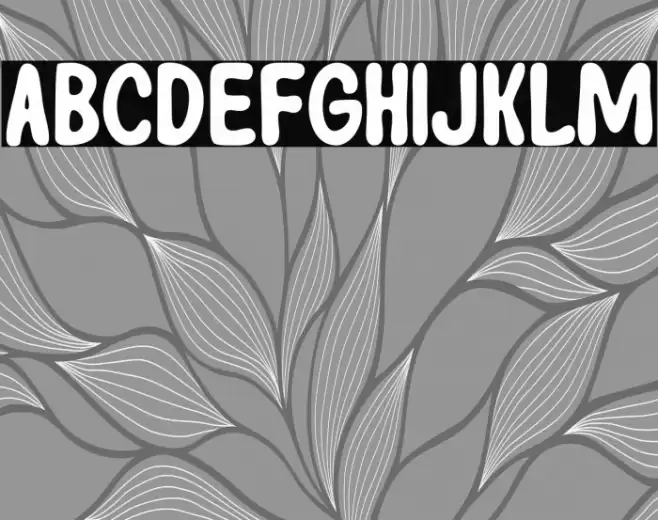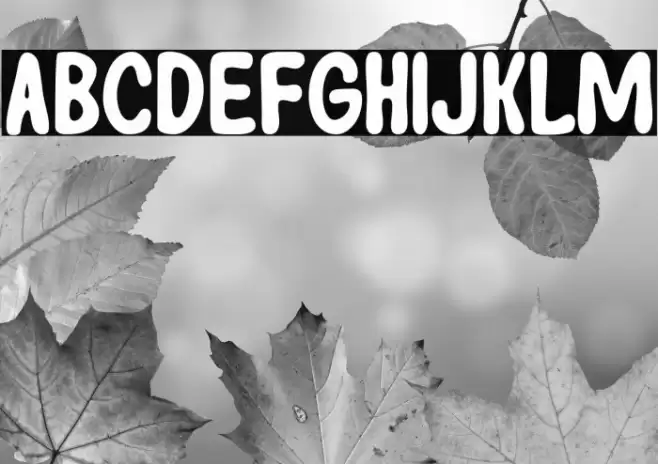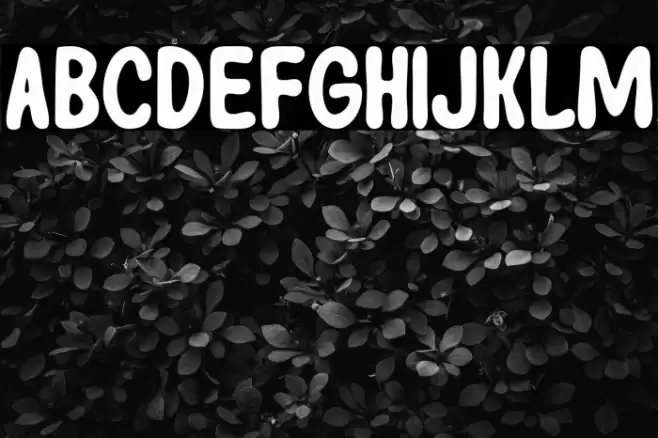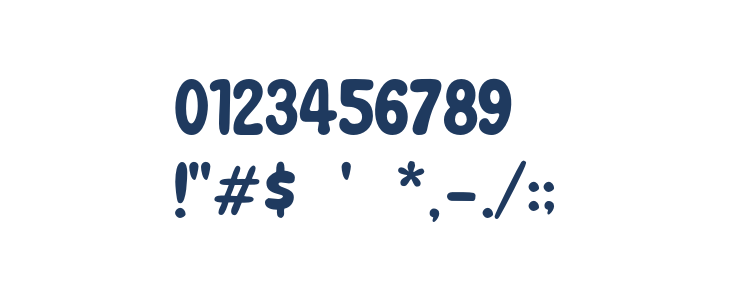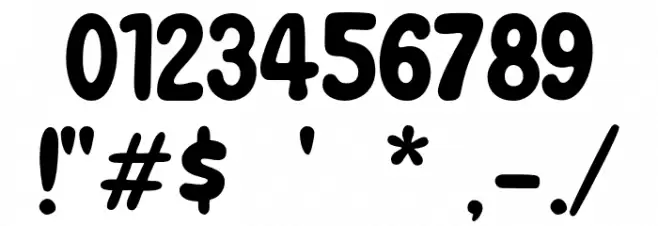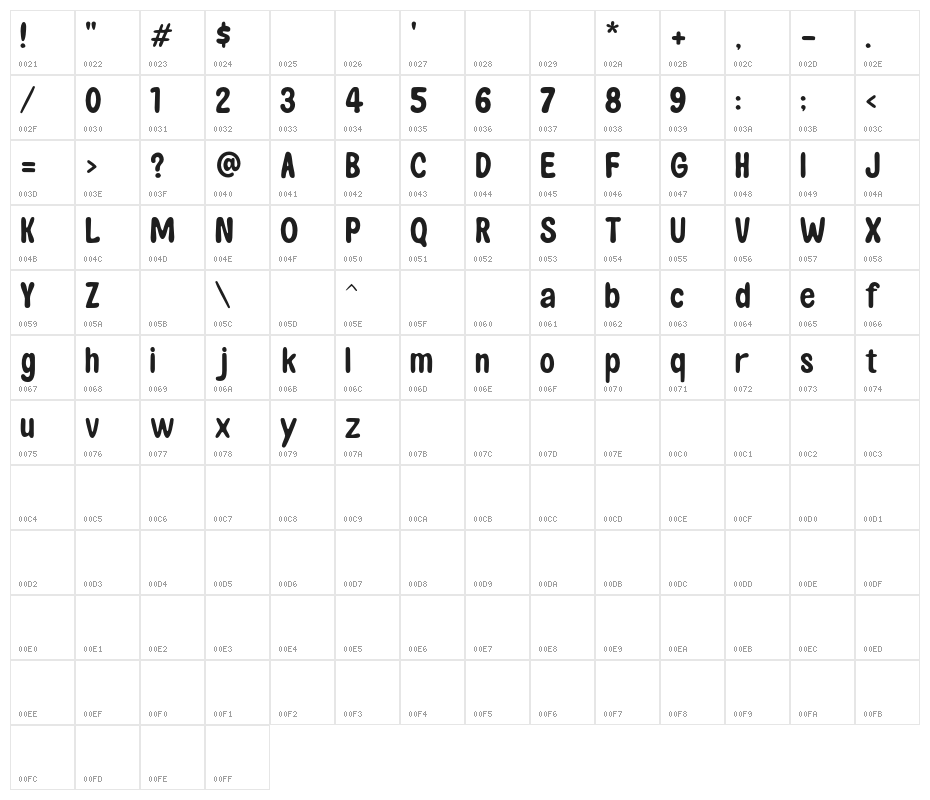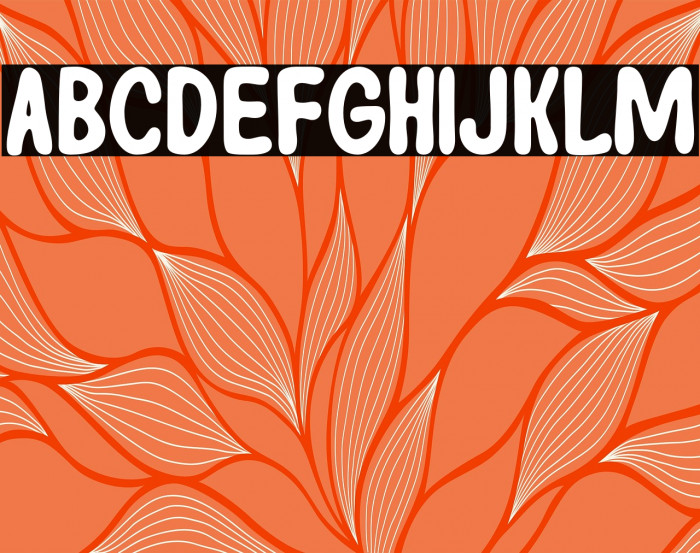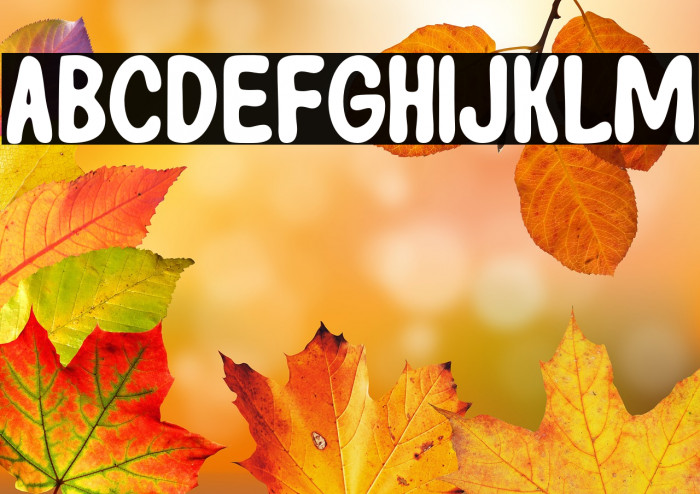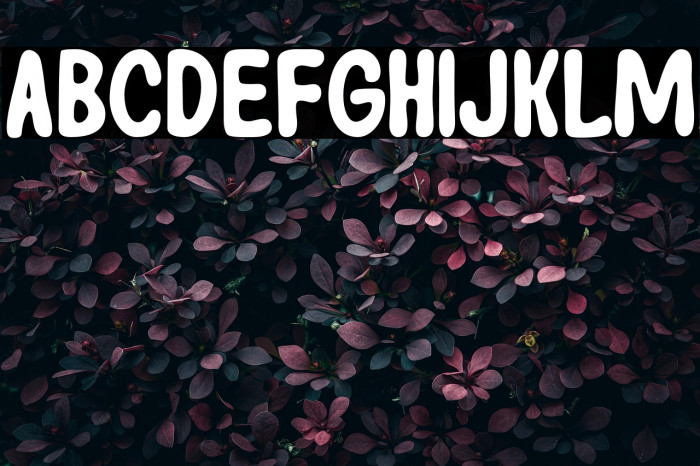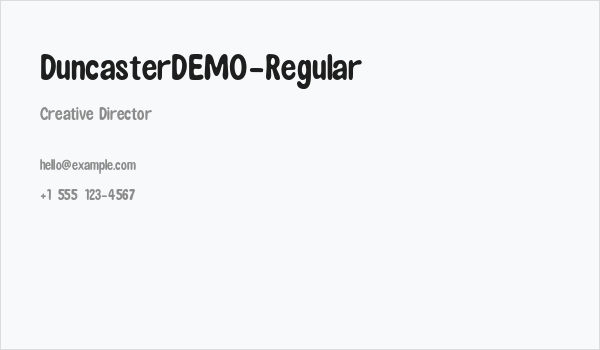
DuncasterDEMO-Regular Font
DuncasterDEMO-Regular Description
This font features a playful and bold design with rounded edges and a slightly irregular form, giving it a hand-drawn appearance. The characters are thick and substantial, providing a strong visual impact. The uppercase and lowercase letters maintain a consistent style, with the lowercase letters slightly shorter and wider. The numbers and special characters follow the same bold and rounded aesthetic, ensuring uniformity across all glyphs. This font exudes a friendly and approachable vibe, making it suitable for casual and creative projects.
A bold, playful font with rounded edges and a hand-drawn feel from Uncategorized fonts.
- Proposed Projects: Ideal for children's books, playful branding, posters, and creative social media graphics.
- Overall Style: Playful, Casual